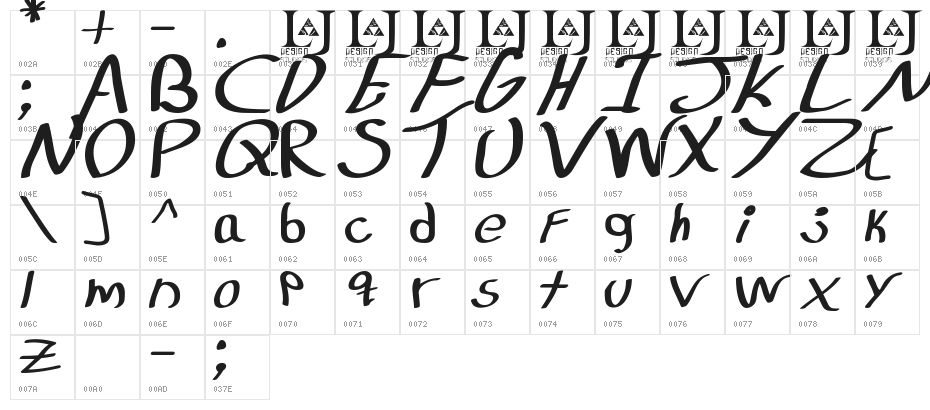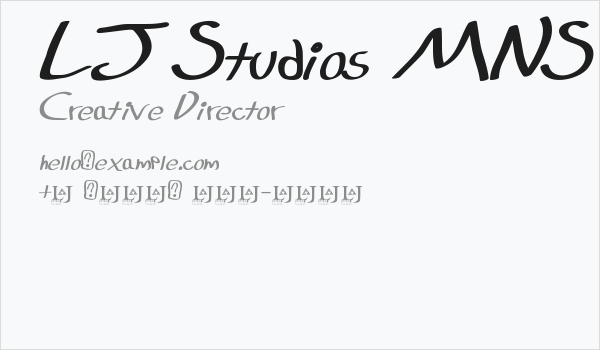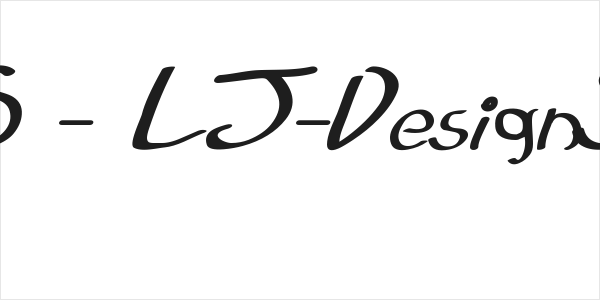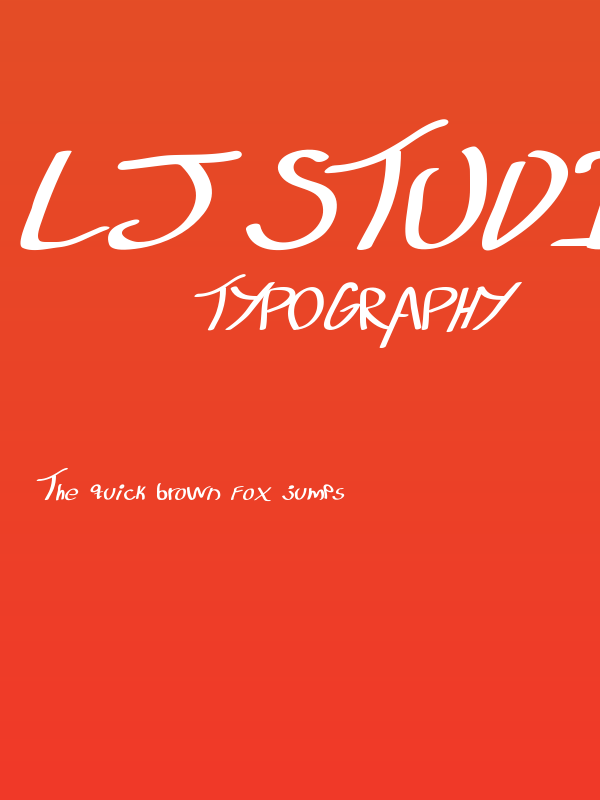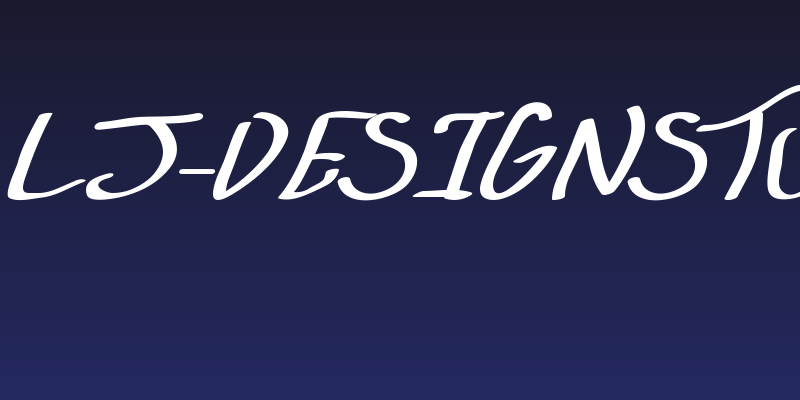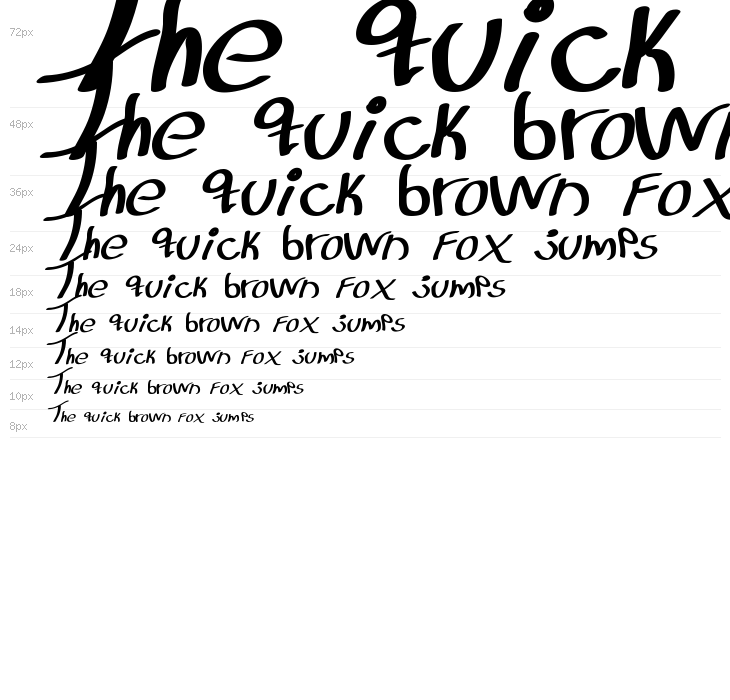
LJ Studios MNS - LJ-DesignStudios Manuscrita Font
LJ Studios MNS - LJ-DesignStudios Manuscrita Description
This font features a playful and dynamic script style with a handwritten appearance. The uppercase letters are bold and slightly slanted, giving a sense of movement and energy. The lowercase letters maintain a consistent flow, with some characters having unique loops and curves that add to the font's charm. The numbers and special characters are designed to match the overall style, with a whimsical touch that makes them stand out. This font is ideal for creative projects that require a personal and artistic touch.
Use CaseLogos, Headlines, Creative projects
Proposed ProjectsIdeal for greeting cards, invitations, logos, and branding materials that require a personal and artistic touch.